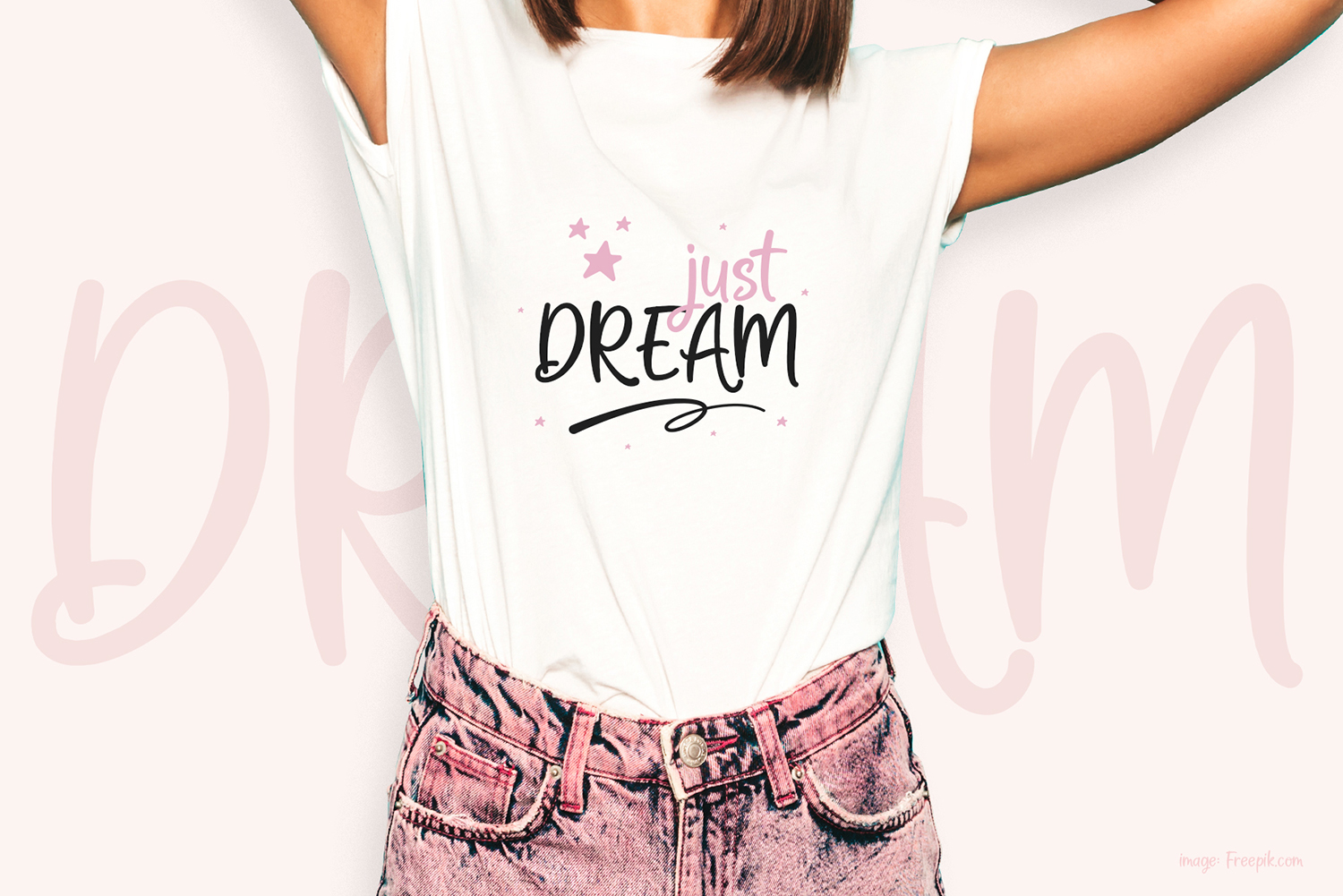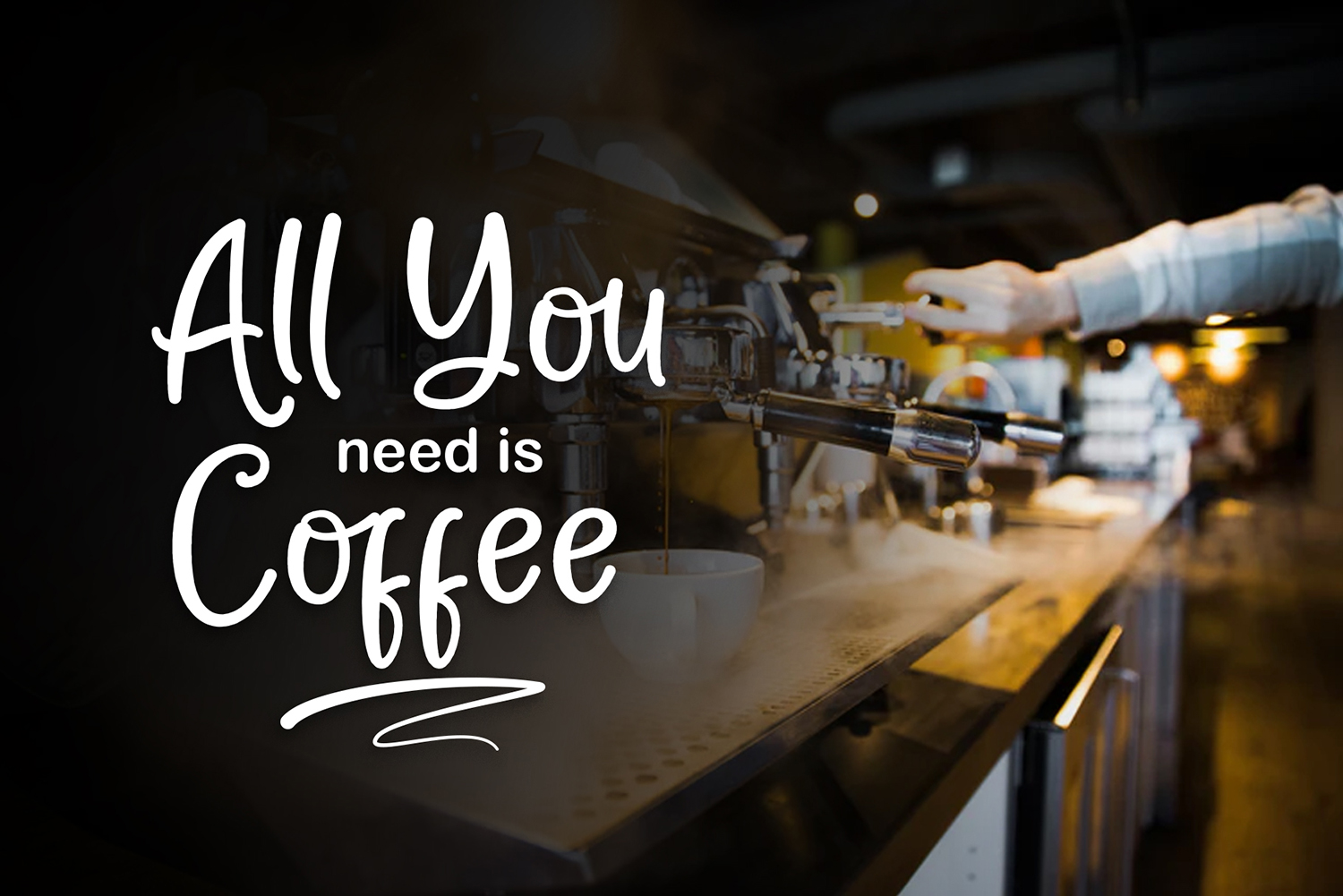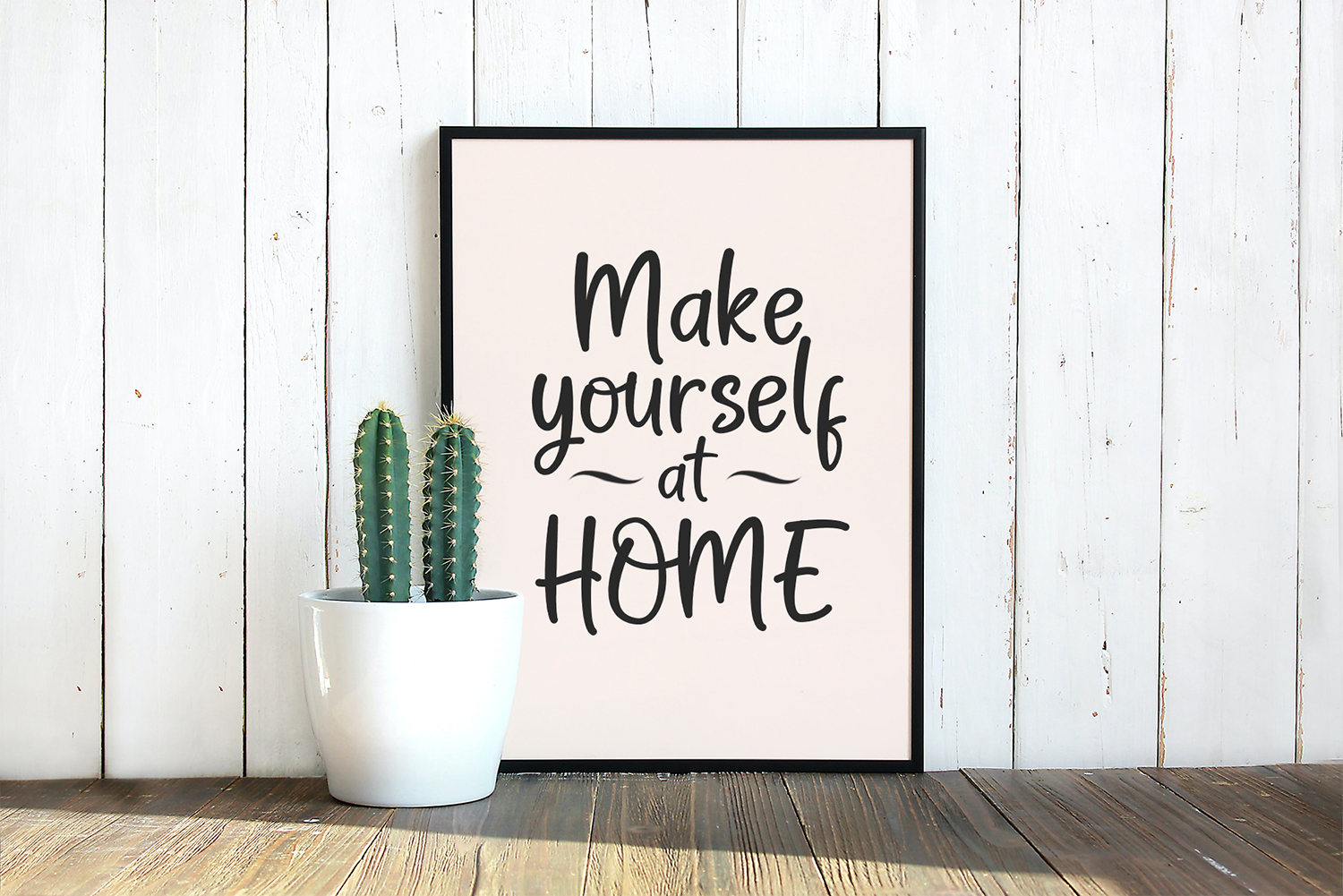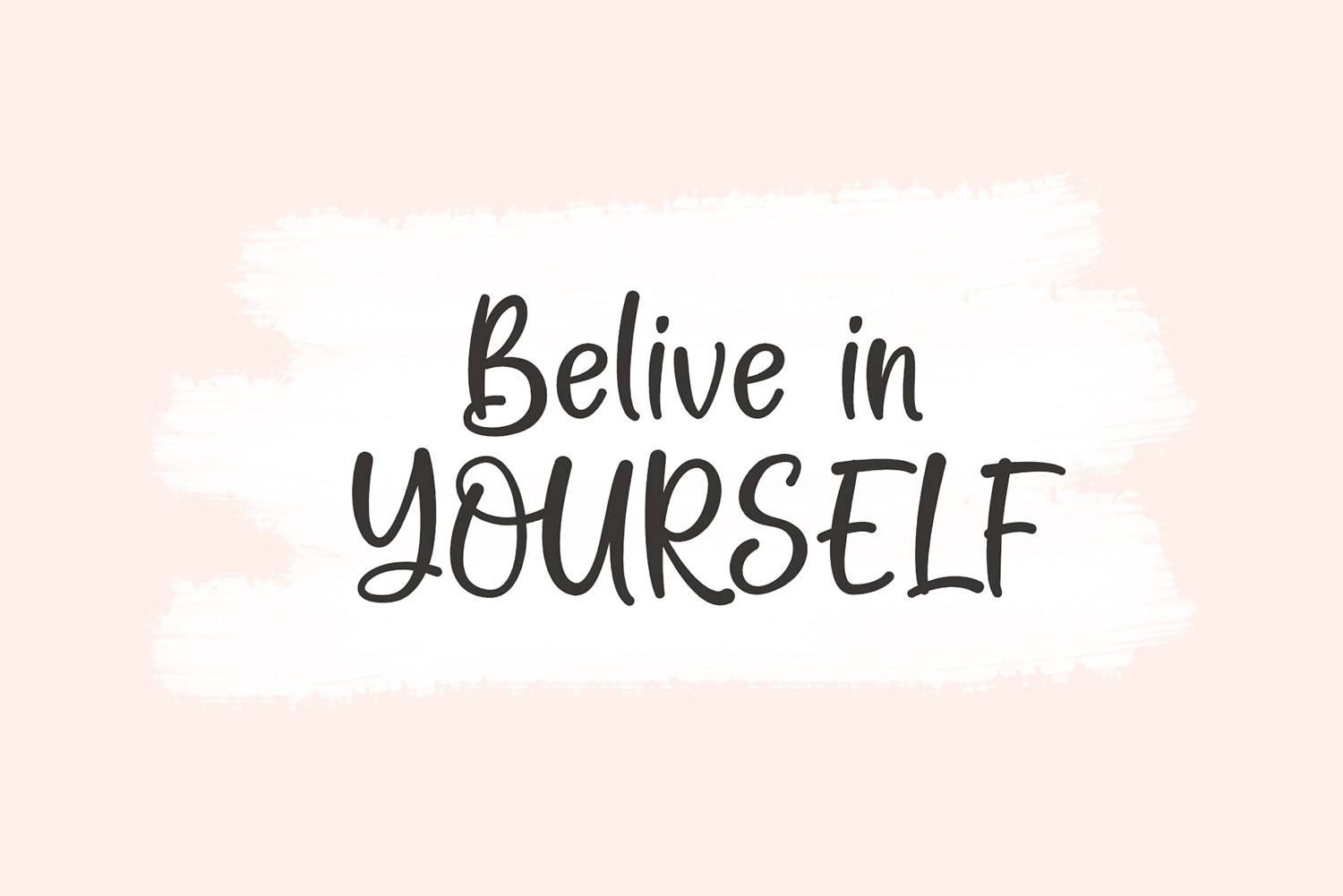
Cooper Rottasy Free Font
Cooper Rottasy Free Font is an adorable handwritten font boasting beautiful swashes and ligatures, enhancing its versatility. Whether you seek fonts for Instagram or calligraphy scripts for DIY projects, Cooper Rottasy has the ability to transform any creative concept into a genuine work of art. This free typeface was designed by a talentedΒ Beautypes Studio. If you like it don’t forget to check out the full version.